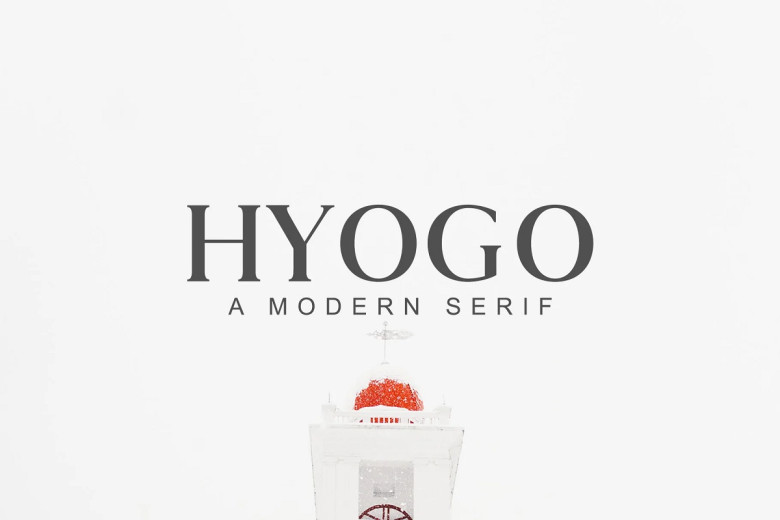
Hyogo Font Family
Hyogo Font
Hyogo is a modern serif typeface that adds some romance and charm to your designs. The font comes with 2 weights includes uppercase and lowercase alphabet, numbers, basic punctuation marks and multilingual support. It pairs well with scripts, signatures or any handwriting style.
Already, Hyogo has been used in headlines, posters, branding, packaging design, presentations, logos, quotes, titles, magazine headlines and web layouts, advertising campaigns, invitations and packaging design for books and almost anything creative.
Hyogo Modern Serif Font Family